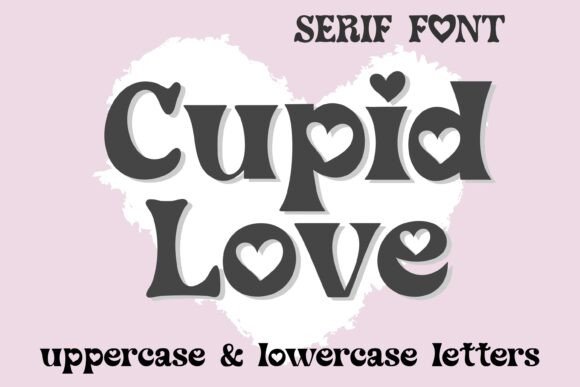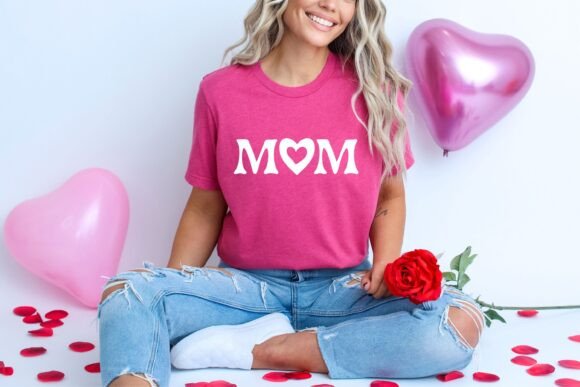
Cupid Love Font
Cupid Love is a charming and playful font with heart-inspired details, perfect for romantic designs, Valentine’s Day projects, wedding invitations, and more. With both OTF and TTF formats, it’s easy to install and use across all your favorite design platforms. Add a touch of love to your DIY crafts, t-shirt designs, greeting cards, and decor projects. Whether you’re crafting for a special occasion or simply spreading joy, Cupid Love will make your creations stand out!